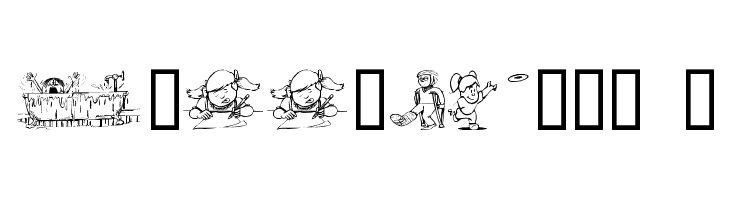
( Fonts by Graham Meade - GemFonts )
Hand-drawn dingbat font with playful child illustrations.
Cartoon children dingbat font with playful, hand-drawn illustrations.